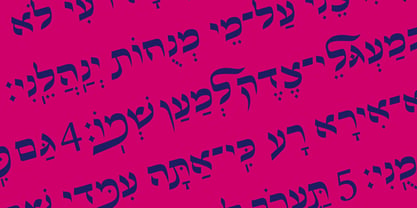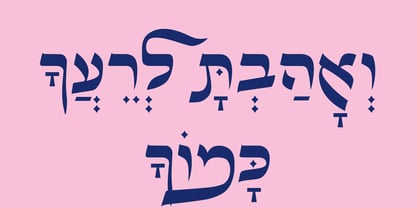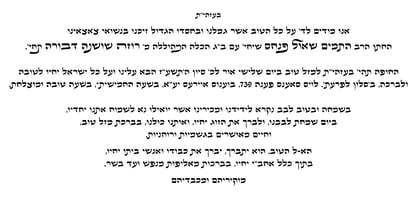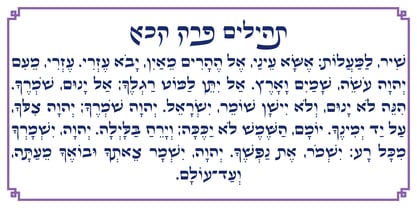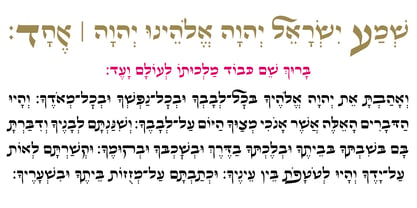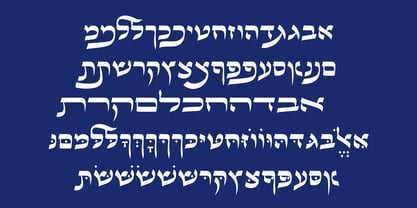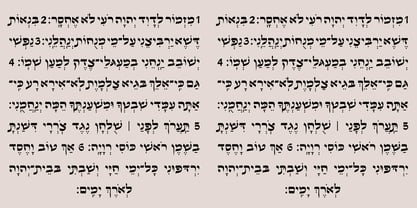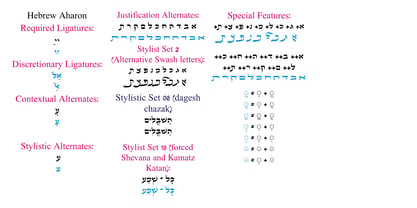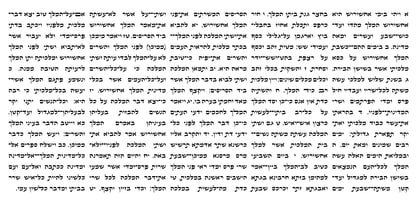
Hebrew Aharon Std
by Samtype
The Hebrew Aharon Std Font Family was designed by Sami Artur Mandelbaum and published by Samtype. Hebrew Aharon Std contains 1 styles. More about this family
This beautiful font is perfect for logos, short texts, book covers, wedding invitations, and more. It features alternative swash and wide letters, enhancing its versatility. You can utilize modern Nikud in this font, including Shevana, Kamatz Katan, Dagesh Chazak, and Cholam Chaser. Designed for seamless use in both Microsoft Word and Adobe InDesign, this font has been meticulously kerned for optimal letter pair spacing, ensuring a polished and professional appearance in your projects.
Designers: Sami Artur Mandelbaum
Foundry: Samtype